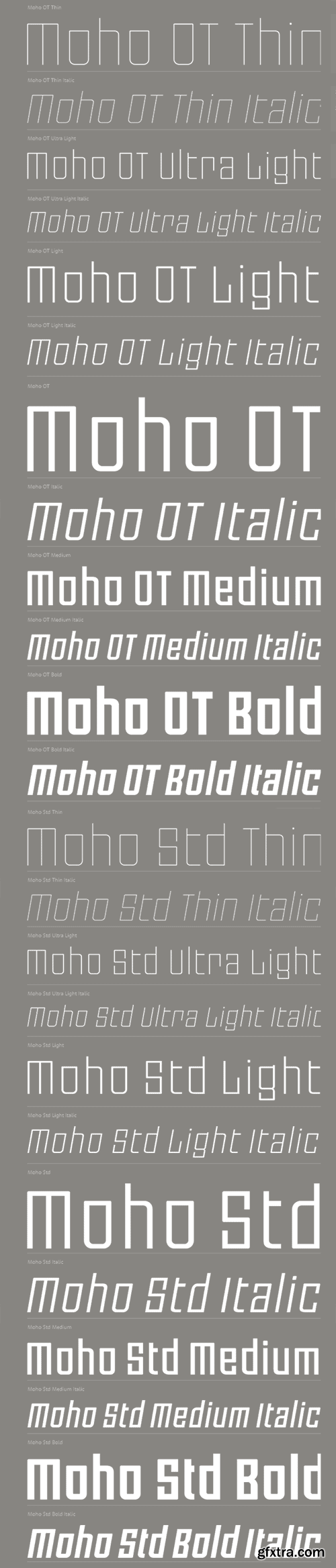
There exist two groups of Moho Family
OT = Full OpenType Features and full set of glyphs
Std= Basic OpenType Features and less glyphs
- Moho is a broad family of types inspired by the burgeoning modernism of the early twentieth century. Moho introduces an unconventional style in the form of his glyphs which aims to impregnate the text compounds thus a distinctive aesthetic sobriety and elegance while creating a flow of practical reading.